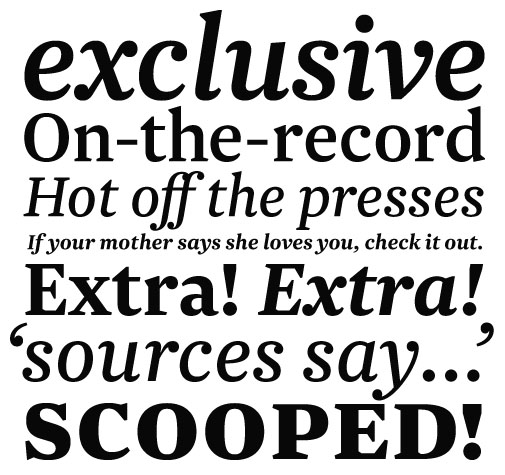
Newzald (KLIM/VIllage)
»Newzald is a decent, hardworking serif designed for the international editorial environment. Its economical rigour is drawn from classic Dutch typefaces by such masters as J.F. Rosart and J.M. Fleischmann. Newzald's large x-height and slightly condensed forms allow many words to the column without looking cramped or ungainly. Newzald has four weights, ranging from the brisk Book to the emphatic Black, providing a dependable palette for the discerning typographer. Its extensive character set includes a wide array of accents, seven numeral sets and small caps across all styles.«